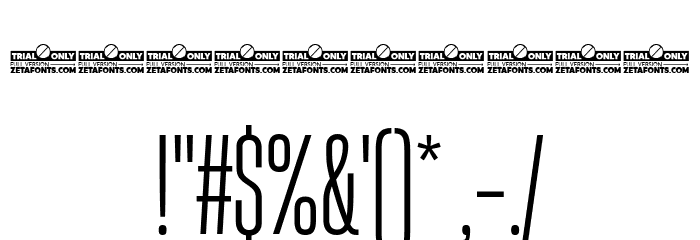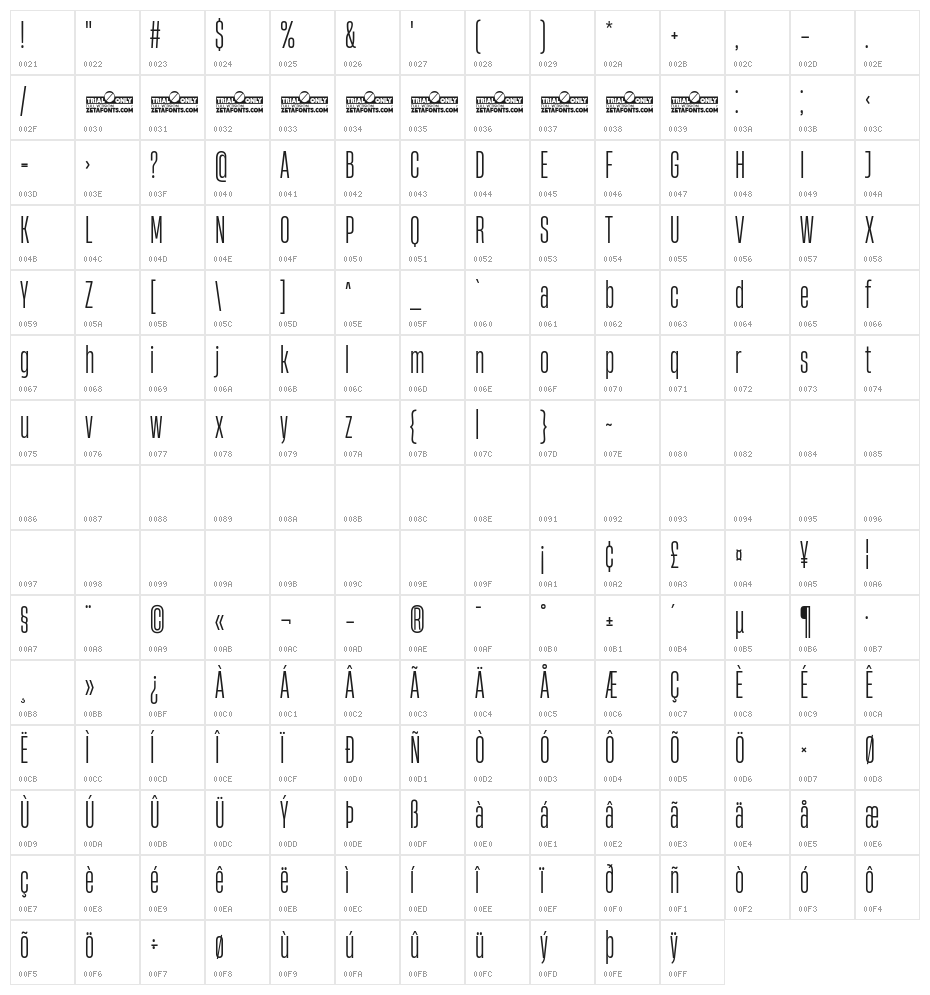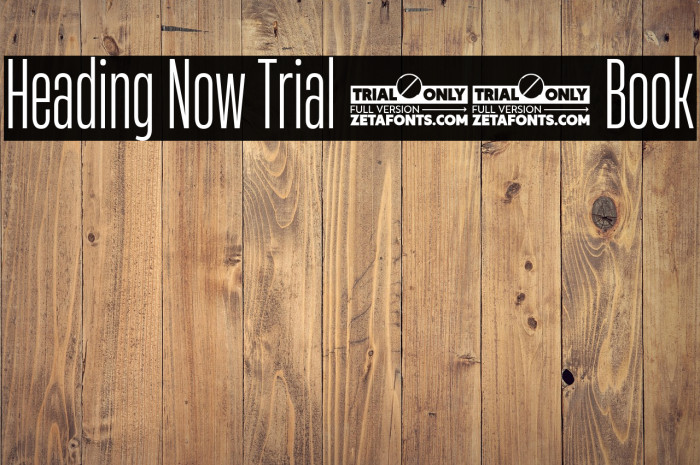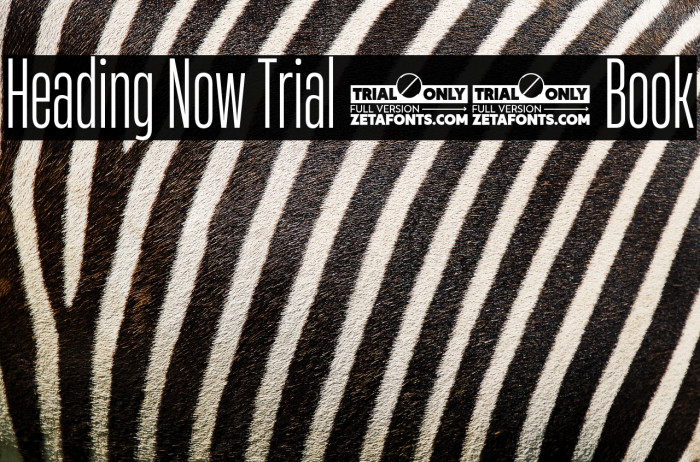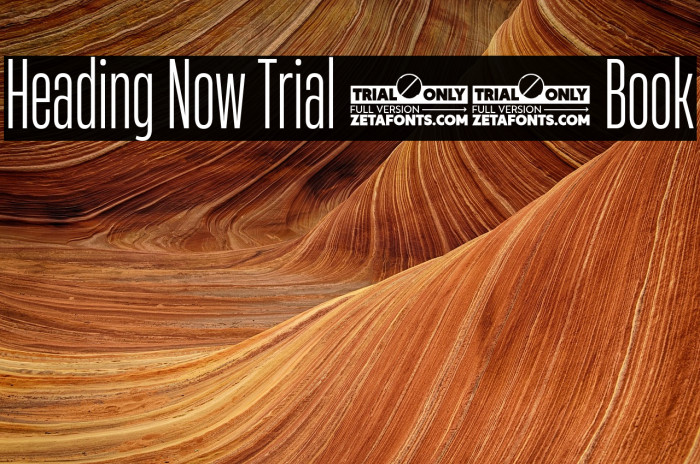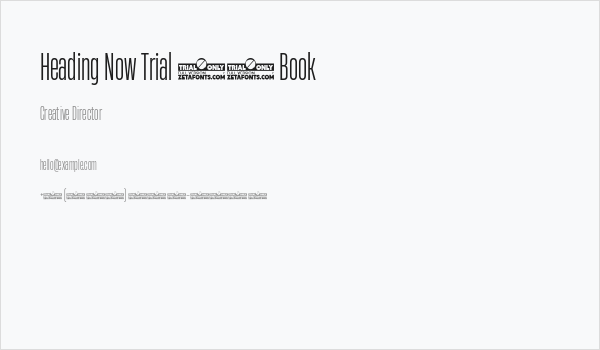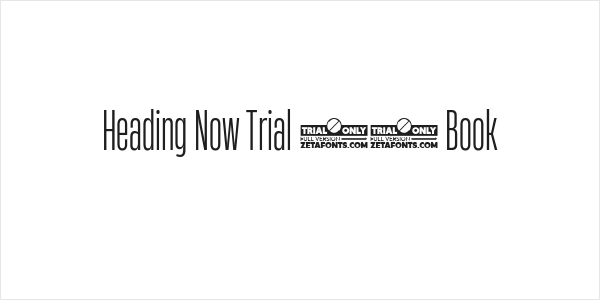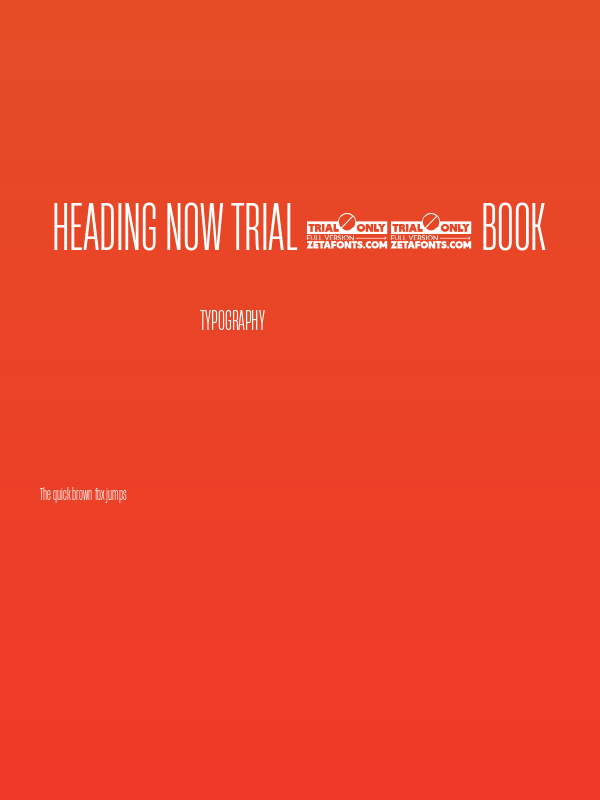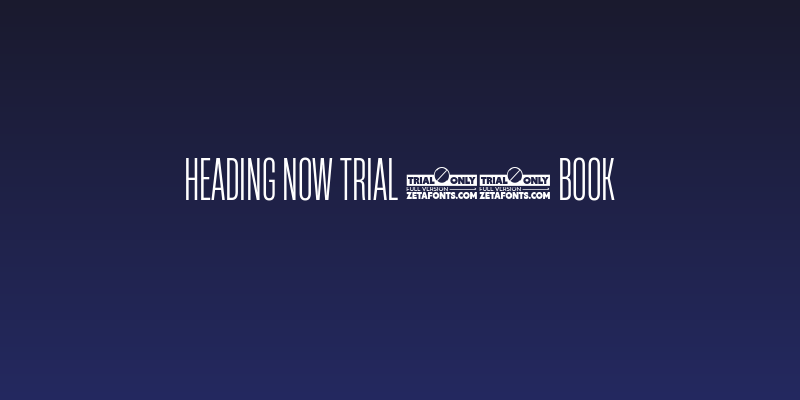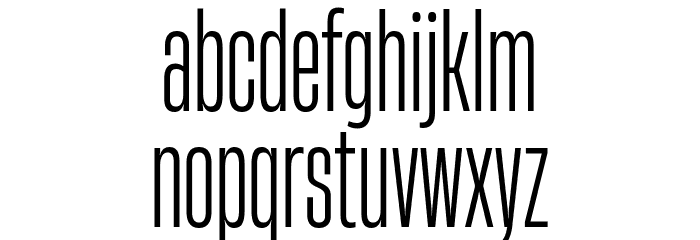
Heading Now Trial 23 Book Font
Heading Now Trial 23 Book Description
This font features a modern and sleek design with tall, narrow characters that convey a sense of elegance and sophistication. The uppercase letters are uniform in height, while the lowercase letters maintain a consistent baseline, enhancing readability. The numerals and special characters are designed with the same narrow proportions, ensuring a cohesive look across all text. The font's clean lines and minimalistic style make it suitable for contemporary design projects. Its overall appearance is both professional and stylish, making it a versatile choice for various applications.